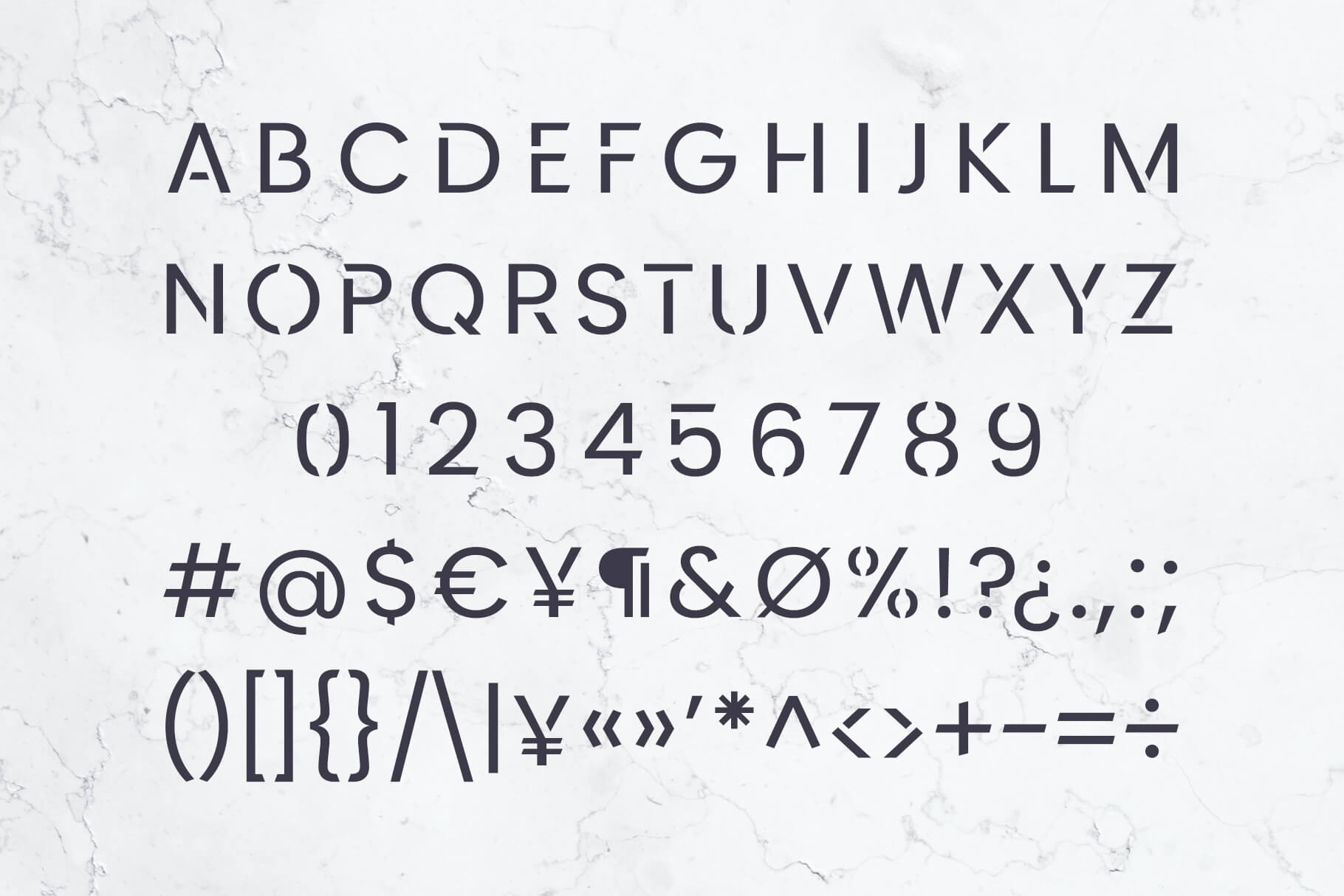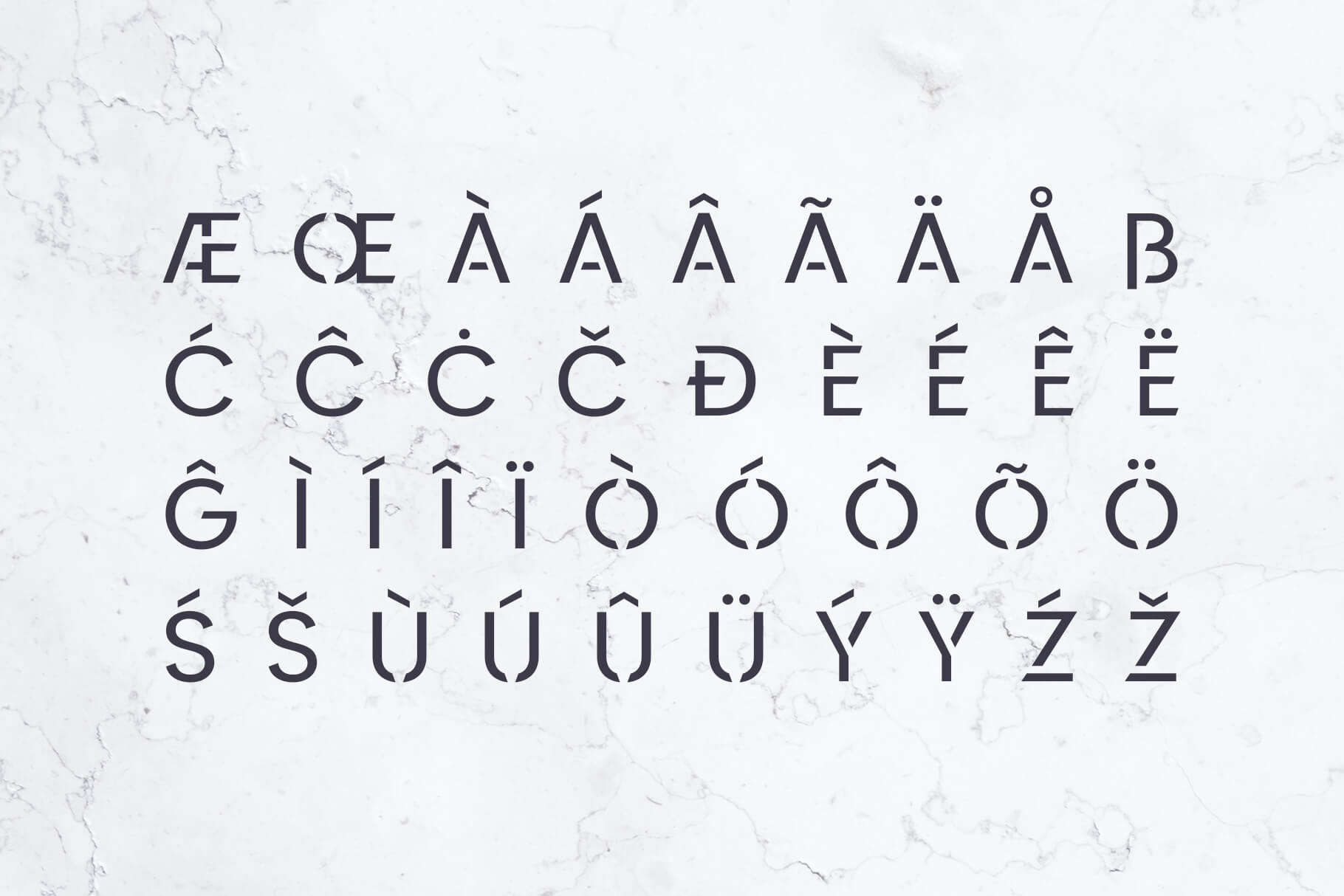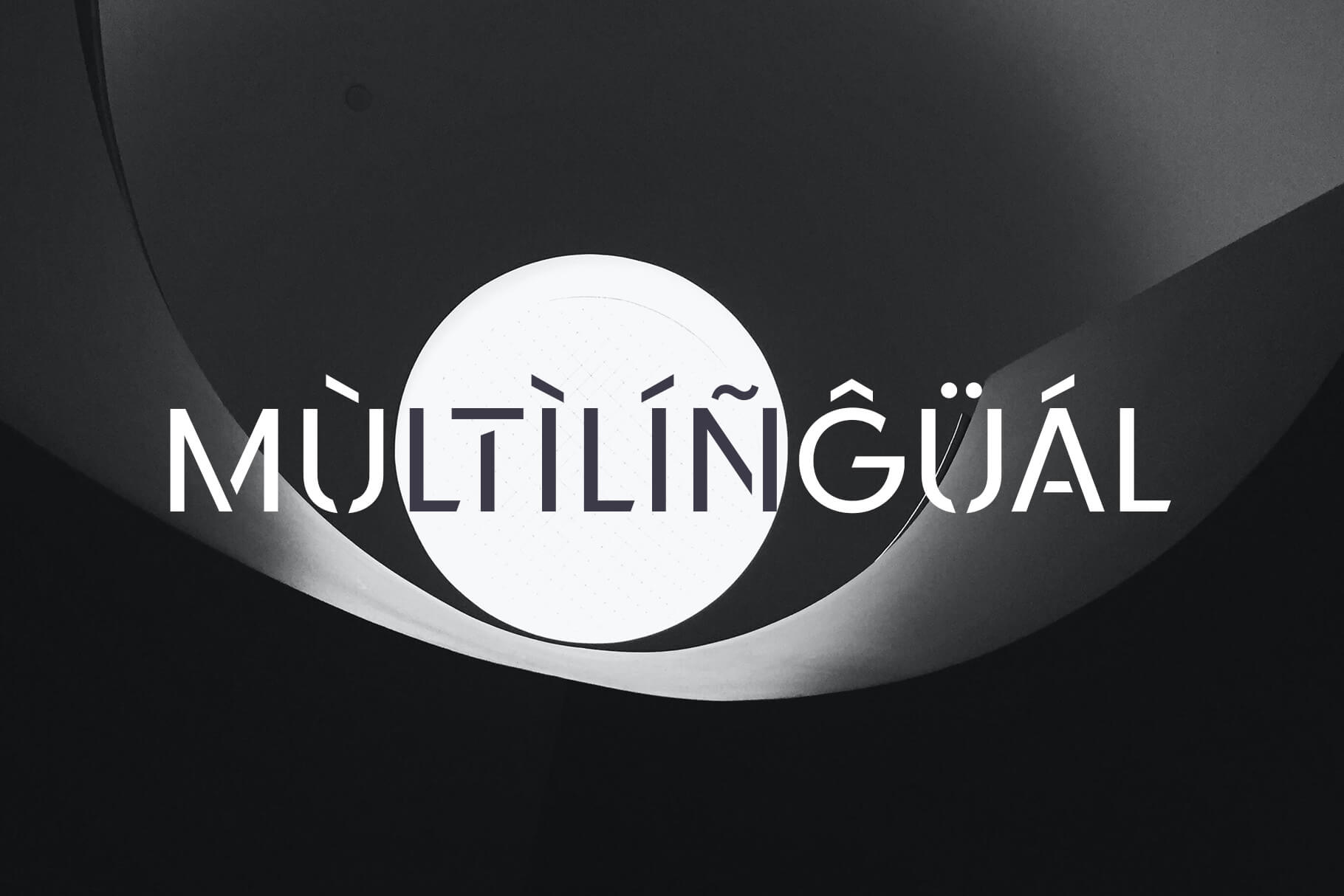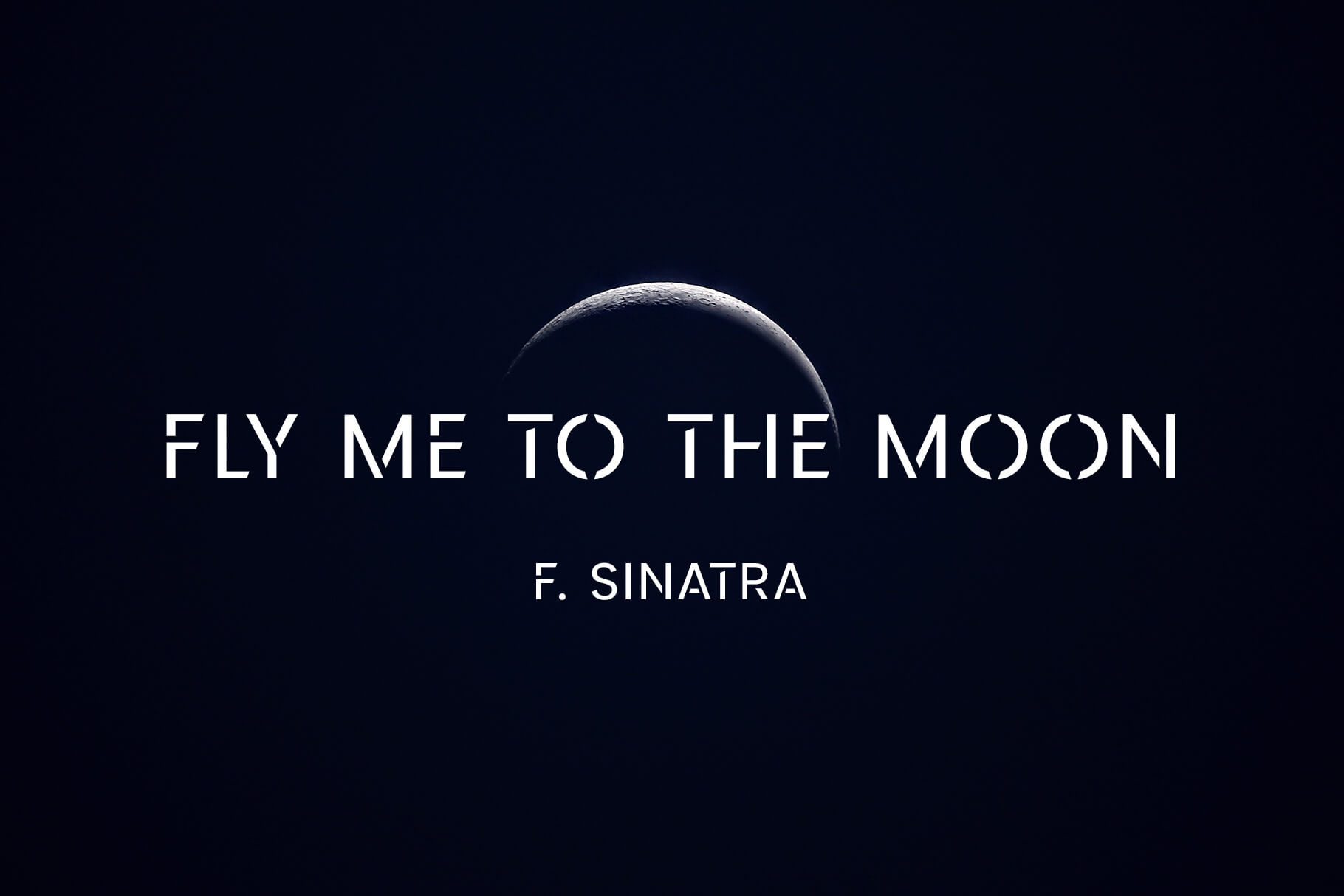
Kerox Free Font Family
Kerox Free Font Family is a strong and clean sans serif font. It’s a versatile font family designed for strong, classic branding. Kerox works great in any branding, logos, magazines, videos, product packaging, website headers, clothing designs, and much more. This free typeface was designed by a talented Robin Campistron. If you like it don’t forget to check out the full version.